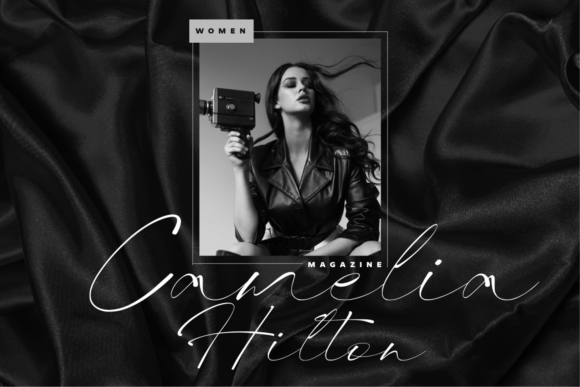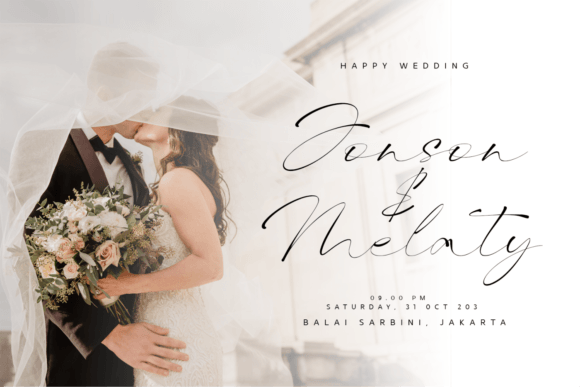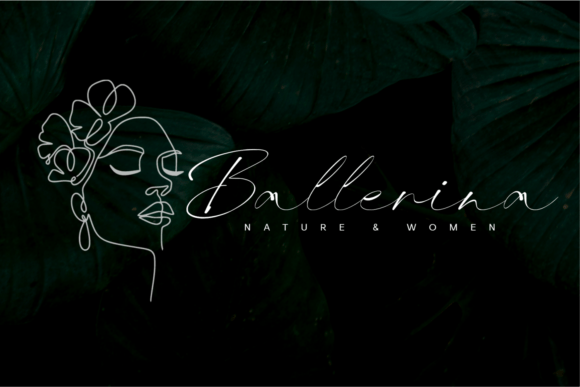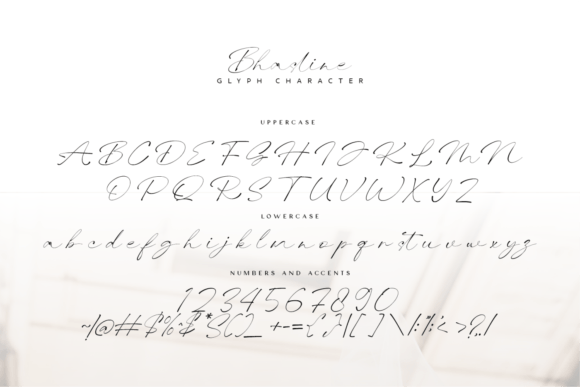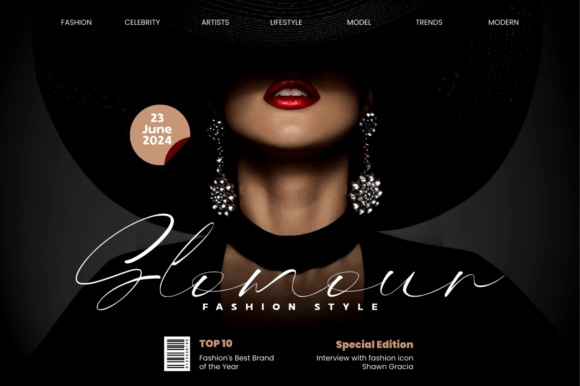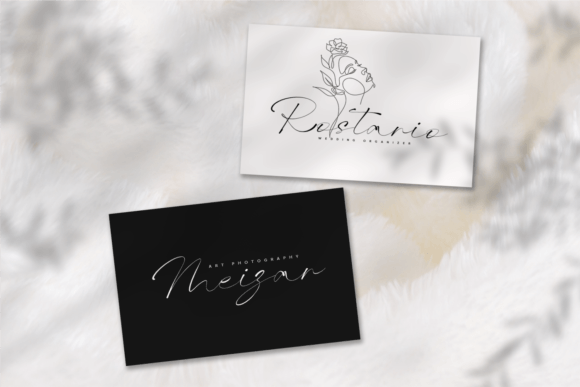
Bhasline Font: The Perfect Natural Signature Style for Your Design Projects
Are you tired of using generic fonts that lack personality in your design projects? Look no further than Bhasline Font, a natural signature style font that mimics the look of writing with ballpoint ink. This unique font is perfect for designers and crafters who want to add a personal touch to their branding projects, logos, wedding designs, social media posts, advertisements, product packaging, and more.
What is Bhasline Font?
Bhasline Font is a carefully crafted font that replicates the natural flow and imperfections of handwriting with a ballpoint pen. Its signature style is perfect for adding a personal and human touch to your designs. The font’s natural and effortless look makes it ideal for a wide range of design projects, from elegant wedding designs to bold advertisements.
Key Features of Bhasline Font
- Natural Signature Style: Bhasline Font boasts a unique and authentic signature style that sets it apart from other fonts.
- Ballpoint Ink Effect: The font accurately mimics the look of writing with ballpoint ink, complete with subtle imperfections and variations.
- Highly Versatile: Bhasline Font is perfect for a wide range of design projects, including branding, logos, wedding designs, social media posts, and more.
- Easily Readable: Despite its natural and handwritten appearance, Bhasline Font is highly legible and easy to read.
Use Cases for Bhasline Font
Bhasline Font is an incredibly versatile font that can be used in a variety of design projects. Here are some of the many use cases for this amazing font:
- Branding Projects: Use Bhasline Font to create unique and memorable brand identities that stand out from the crowd.
- Logos: Create custom logos that showcase your brand’s personality and style with Bhasline Font.
- Wedding Designs: Add a touch of elegance and romance to your wedding designs, including invitations, stationery, and more.
- Social Media Posts: Use Bhasline Font to create eye-catching social media posts that grab attention and engage your audience.
- Advertisements: Create bold and effective advertisements that showcase your brand’s message and personality.
- Product Packaging: Use Bhasline Font to create custom product packaging that stands out on store shelves.
- Product Designs: Add a personal touch to your product designs, including labels, photography, and watermarks.
- Invitations: Create custom invitations for special events, including weddings, birthdays, and more.
- Stationery: Use Bhasline Font to create unique and personalized stationery, including letters, cards, and more.
Why Choose Bhasline Font?
With so many fonts available, why choose Bhasline Font for your design projects? Here are just a few reasons:
- Unique and Authentic: Bhasline Font offers a unique and authentic signature style that sets it apart from other fonts.
- Highly Versatile: The font is perfect for a wide range of design projects, making it a valuable addition to any designer’s toolkit.
- Easily Readable: Despite its natural and handwritten appearance, Bhasline Font is highly legible and easy to read.
- Time-Saving: With Bhasline Font, you can create professional-looking designs in a fraction of the time it would take to create them from scratch.
In conclusion, Bhasline Font is a natural signature style font that offers a unique and authentic look for a wide range of design projects. Its highly versatile and easily readable design makes it perfect for designers and crafters who want to add a personal touch to their branding projects, logos, wedding designs, social media posts, and more. With its ballpoint ink effect and natural flow, Bhasline Font is sure to become a go-to font in your design toolkit.